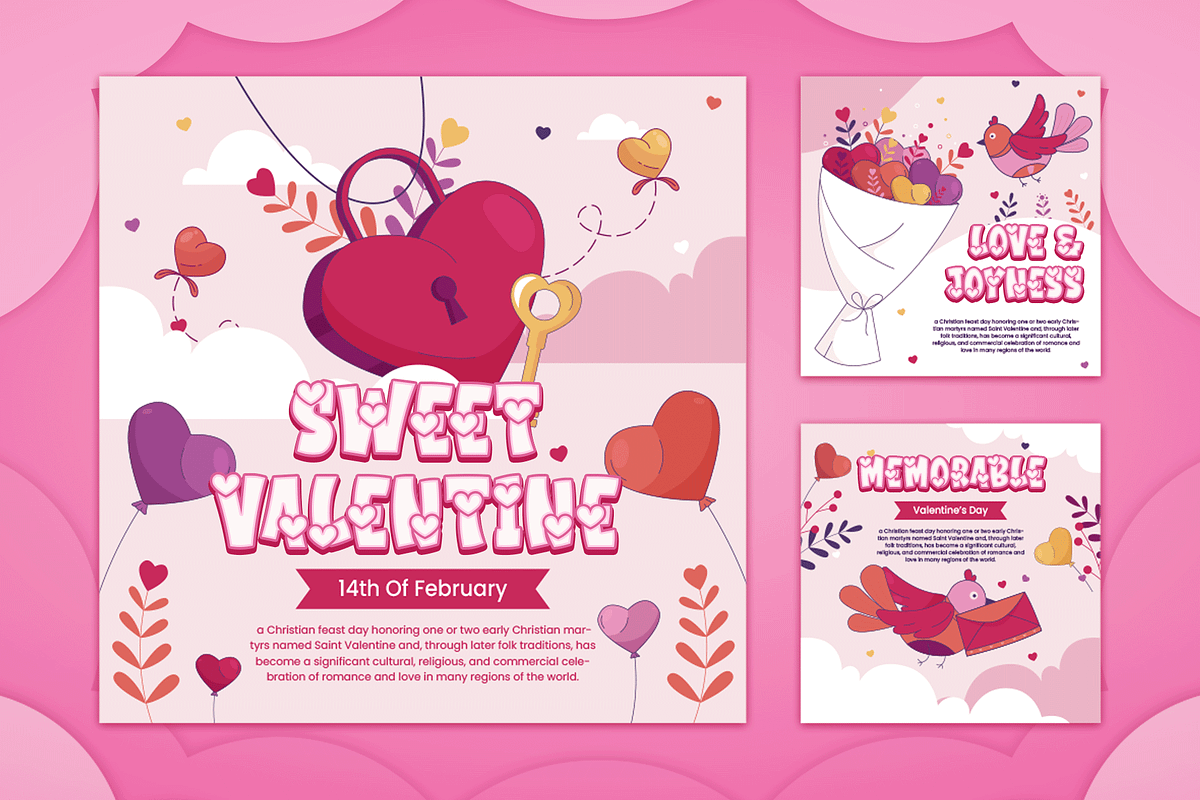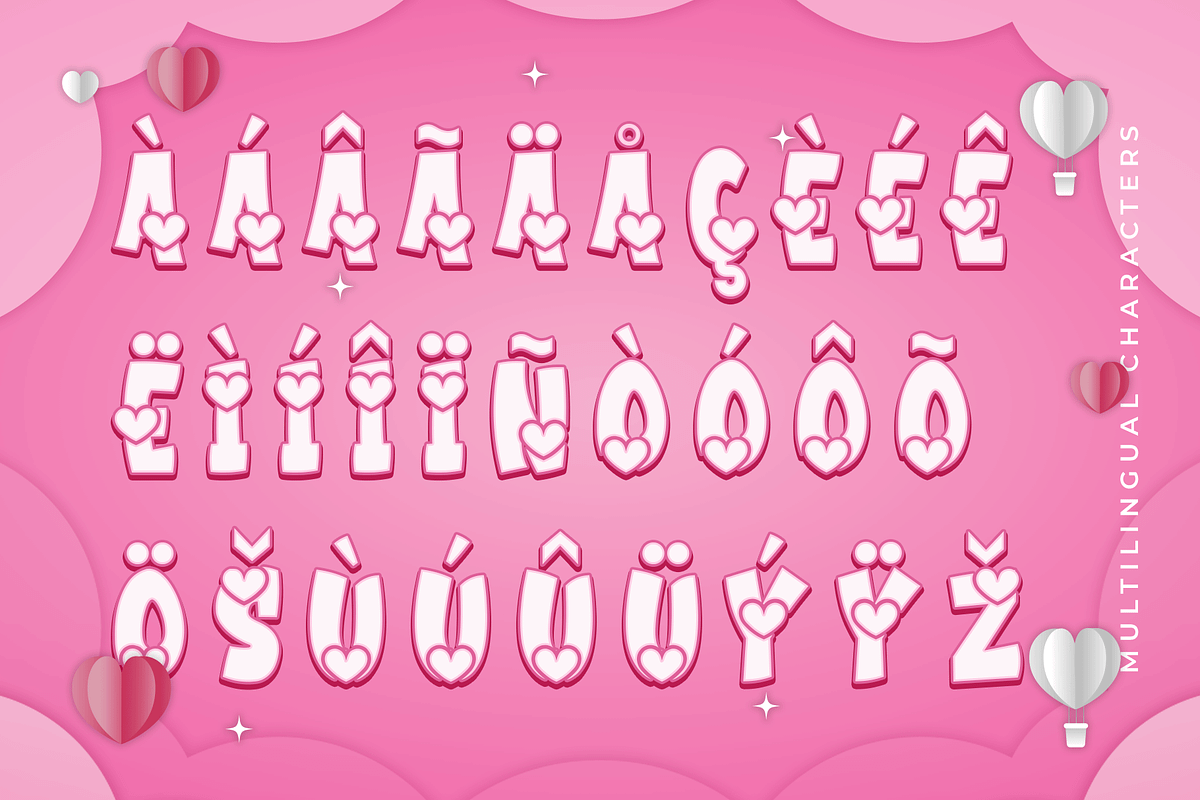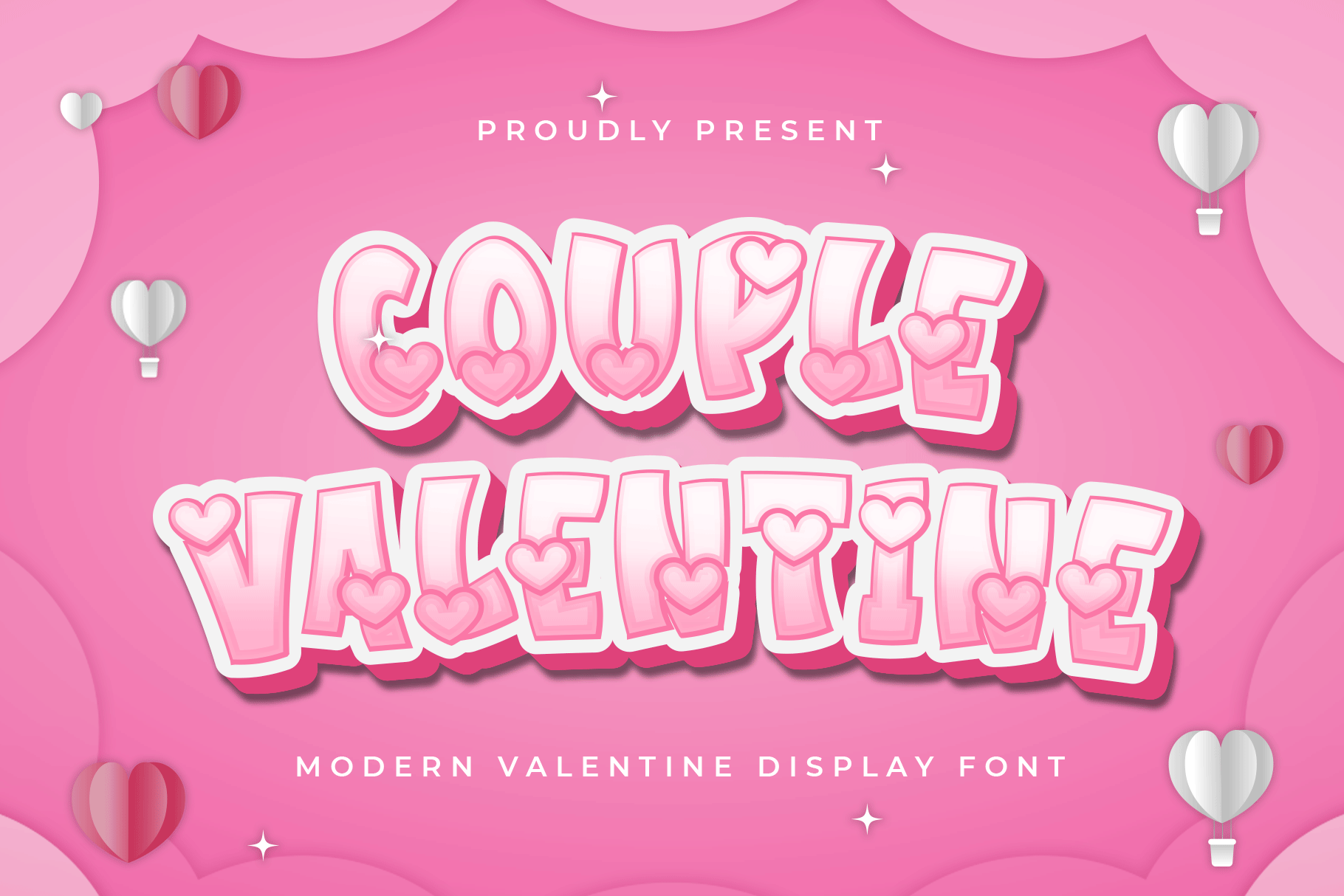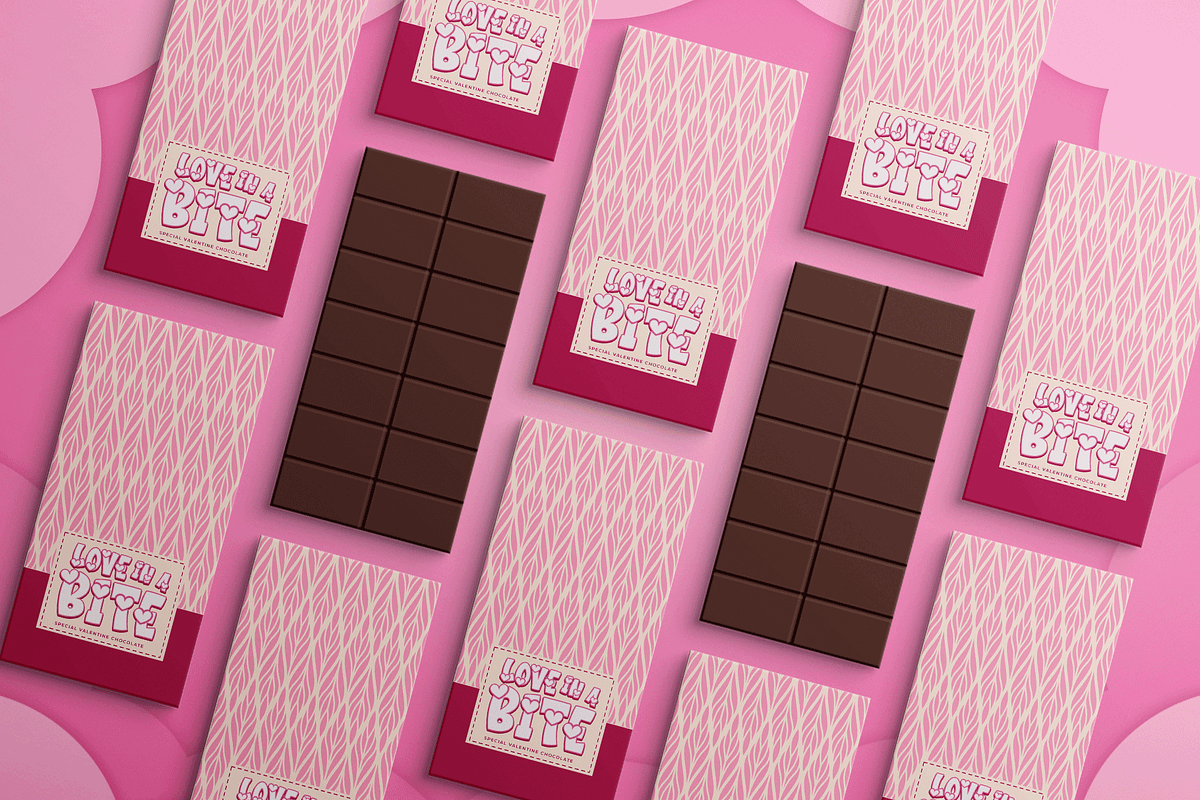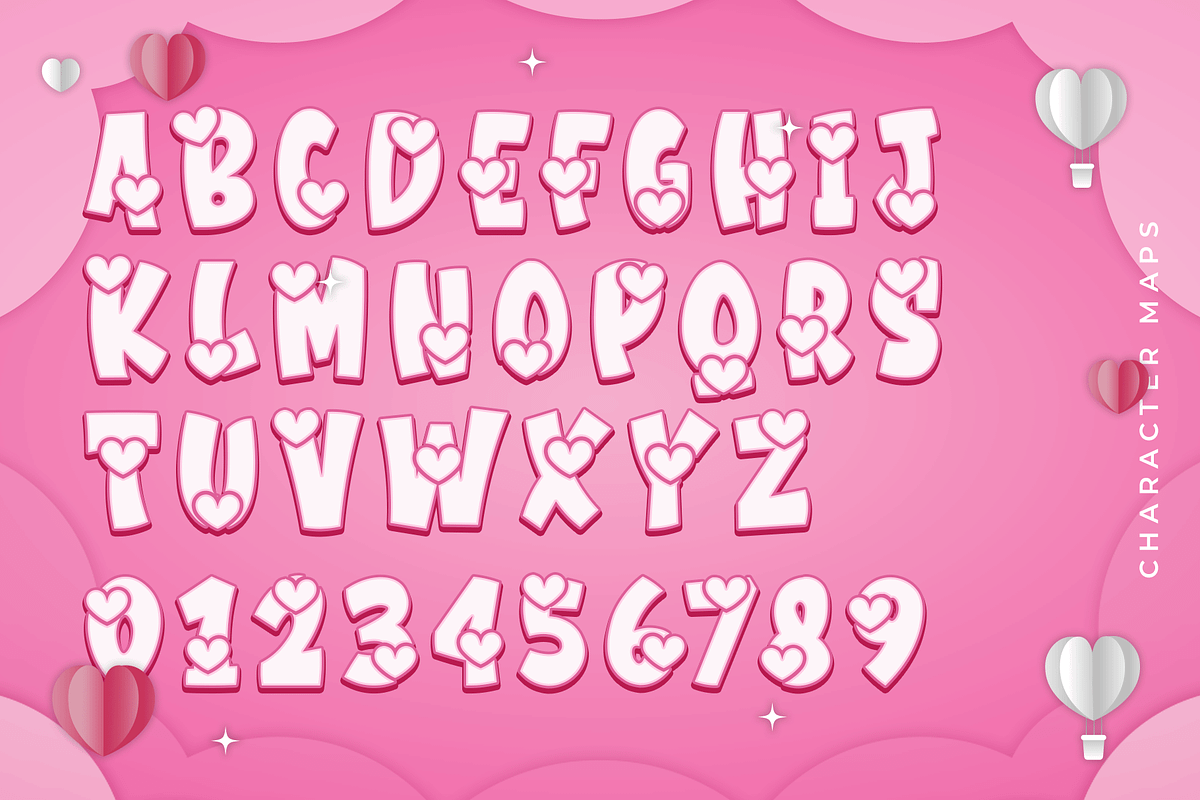
Couple Valentine-Modern Display Font
Couple Valentine - Modern Valentine Display Font
Introducing "Couple Valentine," a modern display font that encapsulates the essence of love and romance in every character. Perfect for graphic designers, event planners, and creatives looking to add a touch of heartfelt elegance to their projects, Couple Valentine offers a charming typeface that shines with romantic flair.
Ideal for Valentine's Day cards, wedding invitations, love notes, posters, and event branding, Couple Valentine’s graceful and playful characters provide a warm and inviting visual appeal. Each letter is meticulously designed to blend modern aesthetics with a romantic touch, making your designs both captivating and tender.
The "Couple Valentine" font includes a complete set of uppercase and lowercase letters, numbers, punctuation marks, and special characters. This comprehensive set ensures seamless integration into various design projects, from delightful greeting cards to elegant wedding stationery.
Celebrate love with Couple Valentine, the modern Valentine display font that brings romance and charm to every project.